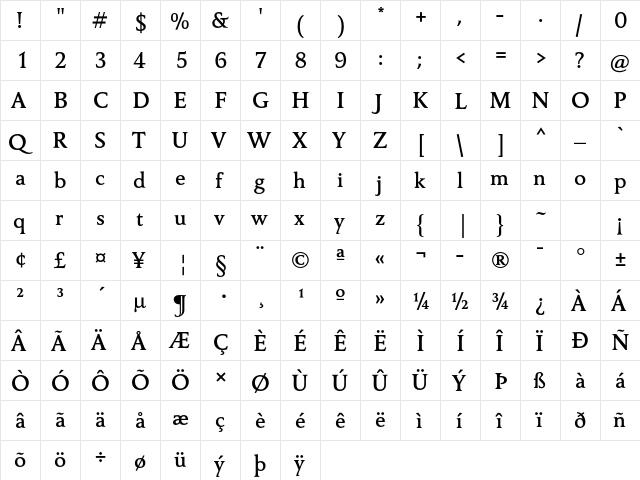
Carre Noir Std Demi Font Preview
Carre Noir Std Demi
Carre Noir Std Demi Font Details
| Style | Demi |
Design Context for Carre Noir Std Typeface
Carre Noir Std is a composed and adaptable typeface that performs quietly and consistently across a wide range of design contexts.